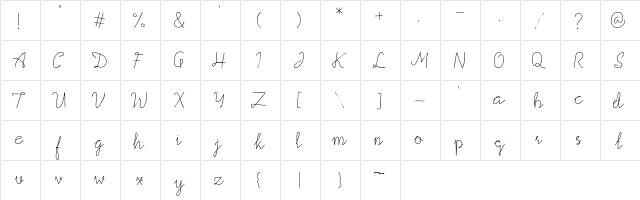
Aquilegia Script Regular
Design Context for Aquilegia Script Typeface
Aquilegia Script flows with the natural rhythm of handwritten lettering, making it ideal for designs that call for warmth and personal expression.
Font Pairing: Combine Aquilegia Script with a simple geometric sans for maximum contrast — the tension between flowing curves and clean structure is a classic typographic pairing.
Pro Tip: Pair Aquilegia Script with a clean sans-serif for supporting text. The contrast between fluid script and geometric structure creates an elegant typographic hierarchy.